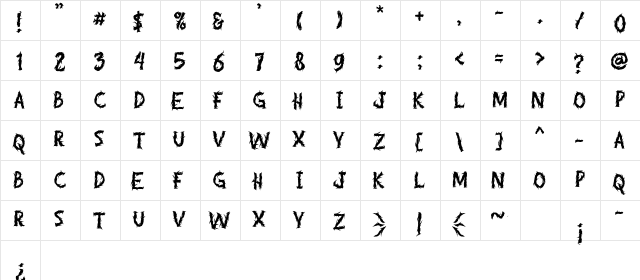
Bogarts Metal Regular
| Designer | Toni Dzulham |
Design Context for Bogarts Metal Typeface
Bogarts Metal is a composed and adaptable typeface that performs quietly and consistently across a wide range of design contexts.